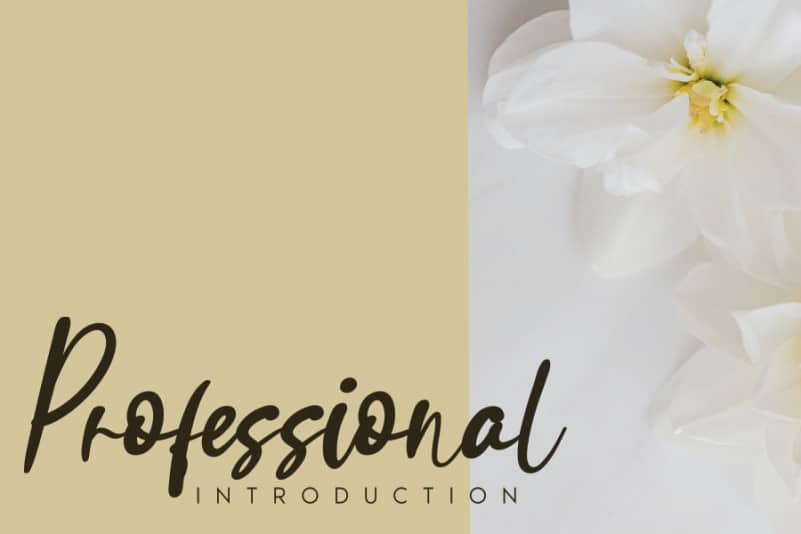
Ayutuban Handwritten Font
Ayutuban Handwritten Font is an elegant and flowing handwritten font, created with the help of a gorgeous brush pen. It maintains its classy calligraphic influences while feeling contemporary and fresh. Fall in love with this font and notice how your projects will come alive!
The latest style letters are perfect for wall displays, wedding invitations, social media post logos, advertisements, product packaging, product designs, labels, photography, watermarks, invitations, stationery, and any project that requires taste handwriting.